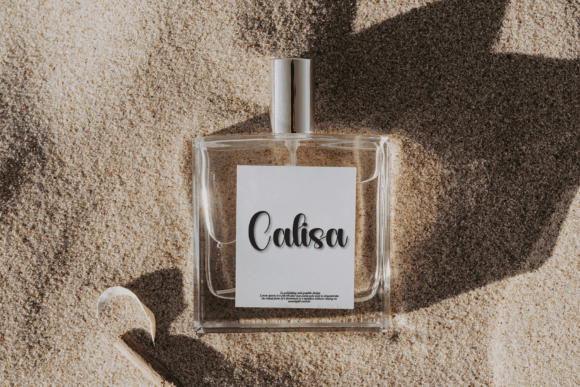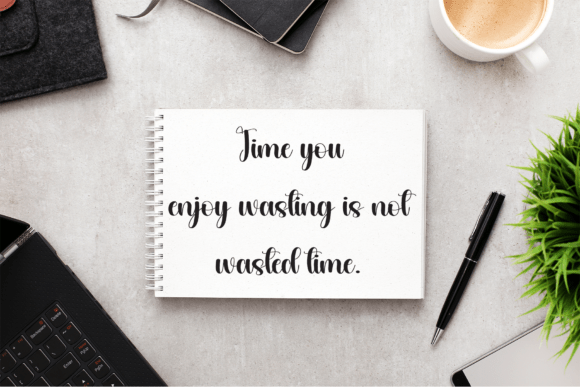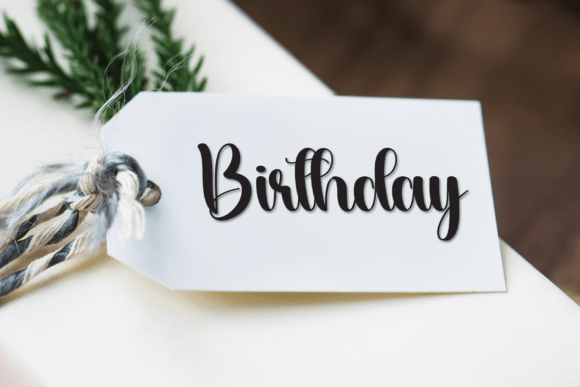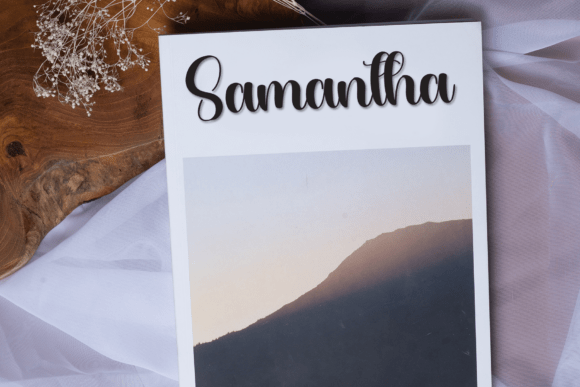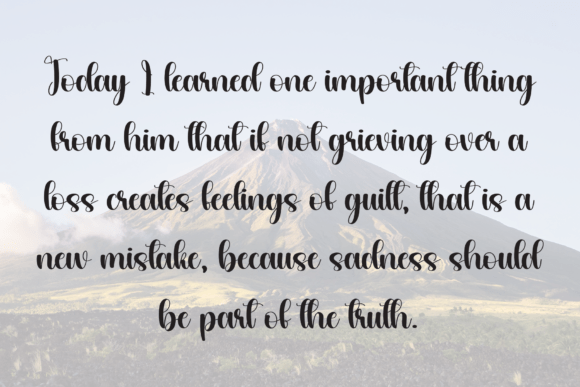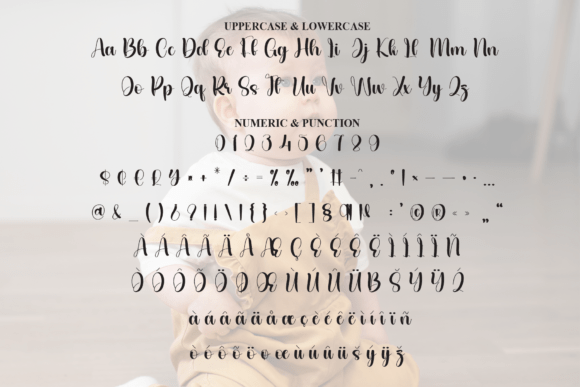
Introducing Chubby Baby Font: Elevate Your Designs with Artistic Flair and Contemporary Elegance
In the world of typography, few fonts manage to strike a balance between artistic expression and modern sophistication. Chubby Baby Font is one such exceptional typeface that brings a fresh and creative spin to the realm of script fonts. With its fluid brush strokes, dynamic curves, and expressive letterforms, Chubby Baby captures the essence of hand-painted calligraphy, infusing it with a contemporary twist that appeals to designers and crafters alike.
The Artistic Appeal of Chubby Baby Font
Chubby Baby Font is more than just a collection of letters; it’s an artistic statement. Its design is inspired by the fluidity and spontaneity of brush calligraphy, yet it maintains a level of precision and consistency that makes it perfect for digital and print applications. Each character in the Chubby Baby Font is crafted to convey a sense of movement and energy, as if the words themselves are dancing across the page.
One of the standout features of Chubby Baby is its use of fluid brush strokes. Unlike rigid, uniform fonts, Chubby Baby’s letters flow into one another with a natural, almost organic feel. This fluidity gives the font its unique character and makes it instantly recognizable. Whether you’re designing a logo, an invitation, or a social media graphic, Chubby Baby adds a touch of whimsy and personality that sets your work apart.
Versatility and Application
Chubby Baby Font is incredibly versatile, making it suitable for a wide range of design projects. Here are some of the key areas where this font truly shines:
- Logos: For businesses looking to create a brand identity that’s both modern and memorable, Chubby Baby offers a stylish solution. Its unique letterforms and dynamic curves make it perfect for crafting logos that stand out.
- Invitations: Whether you’re planning a wedding, a birthday party, or any other special event, Chubby Baby can add a touch of elegance and sophistication to your invitations. Its artistic flair ensures that your event stands out and leaves a lasting impression.
- Packaging: In the competitive world of product packaging, standing out on the shelves is crucial. Chubby Baby Font can help you achieve this with its eye-catching design and contemporary feel, making your product packaging not only functional but also visually appealing.
- Social Media Graphics: For social media influencers and brands, creating engaging content is key. Chubby Baby can elevate your social media graphics, making them more visually appealing and engaging to your audience.
Why Choose Chubby Baby Font?
There are several reasons why designers and crafters are gravitating towards Chubby Baby Font:
- Unique Artistic Style: In a sea of generic fonts, Chubby Baby offers a breath of fresh air with its distinctive brush script style.
- High Versatility: Whether you’re working on digital projects or print materials, Chubby Baby adapts seamlessly, delivering impact and elegance across various mediums.
- Contemporary Elegance: It brings a modern sophistication to your designs, making it suitable for brands and individuals looking to convey a sense of style and refinement.
Chubby Baby Font is a stylish script font that exudes artistic flair and contemporary elegance. Its fluid brush strokes, dynamic curves, and expressive letterforms make it an ideal choice for designers and crafters looking to add a creative and sophisticated touch to their projects. Whether you’re designing logos, invitations, packaging, or social media graphics, Chubby Baby delivers both visual impact and versatility. By incorporating Chubby Baby into your design toolkit, you’re not just choosing a font; you’re embracing a new way to communicate style, personality, and creativity through your work.
So, why settle for ordinary when you can create something extraordinary? Explore the possibilities with Chubby Baby Font today and discover how this stylish script font can transform your designs into stunning works of art.